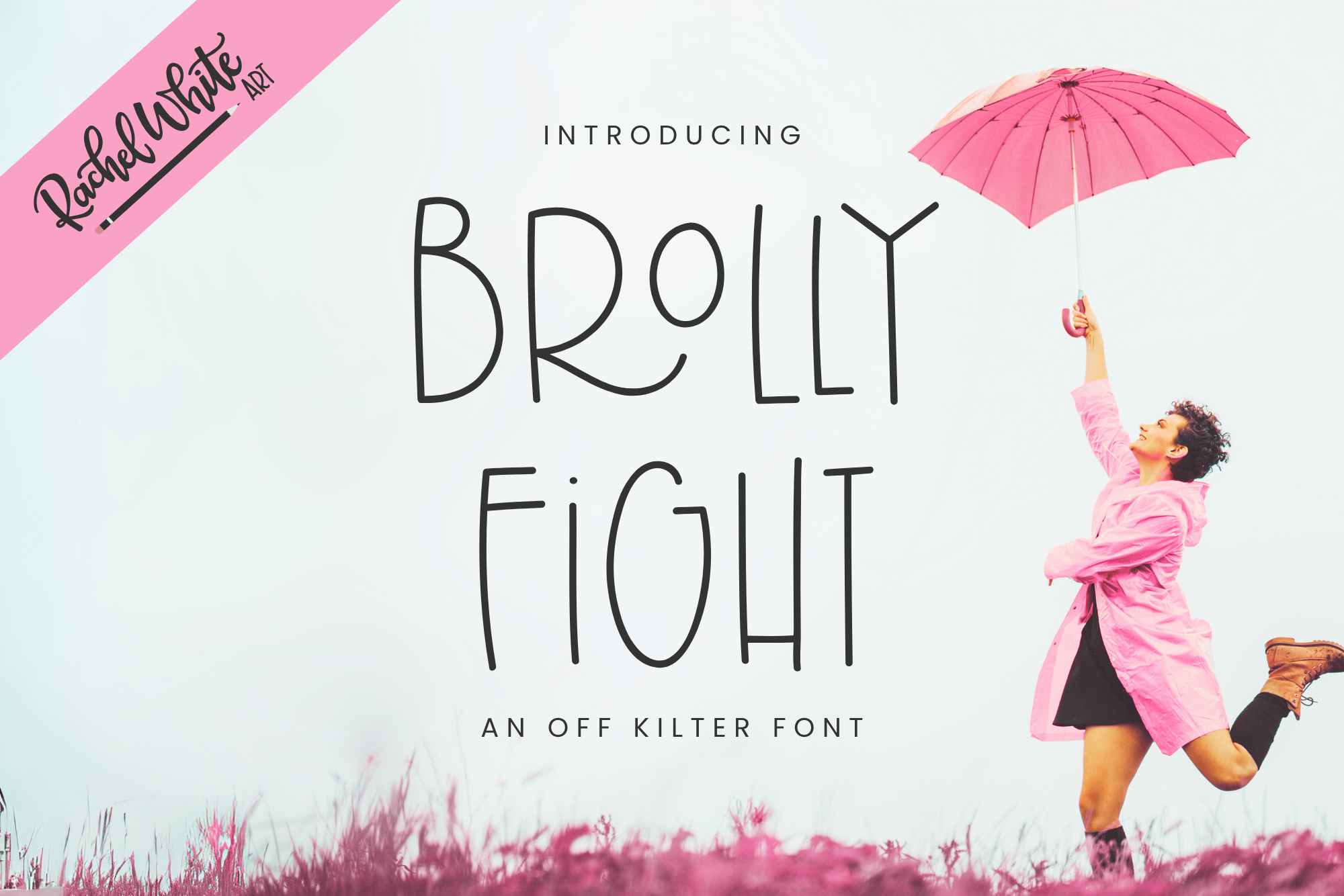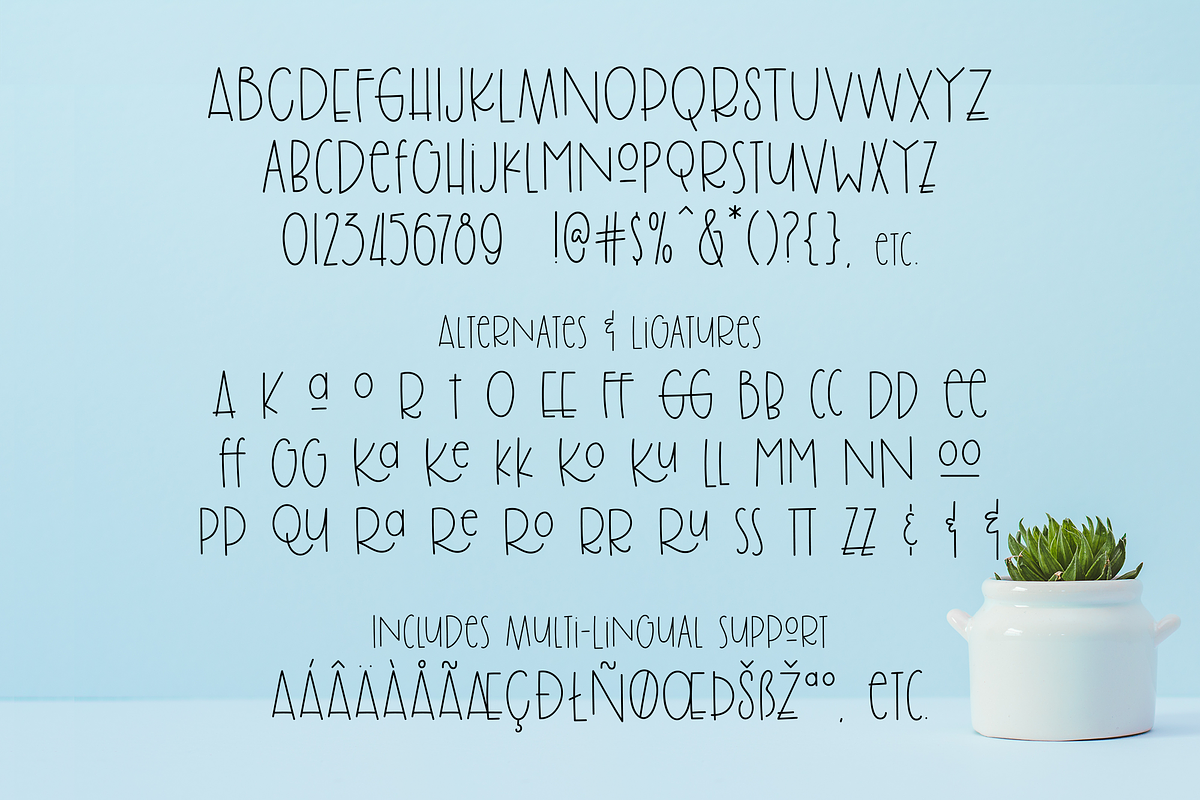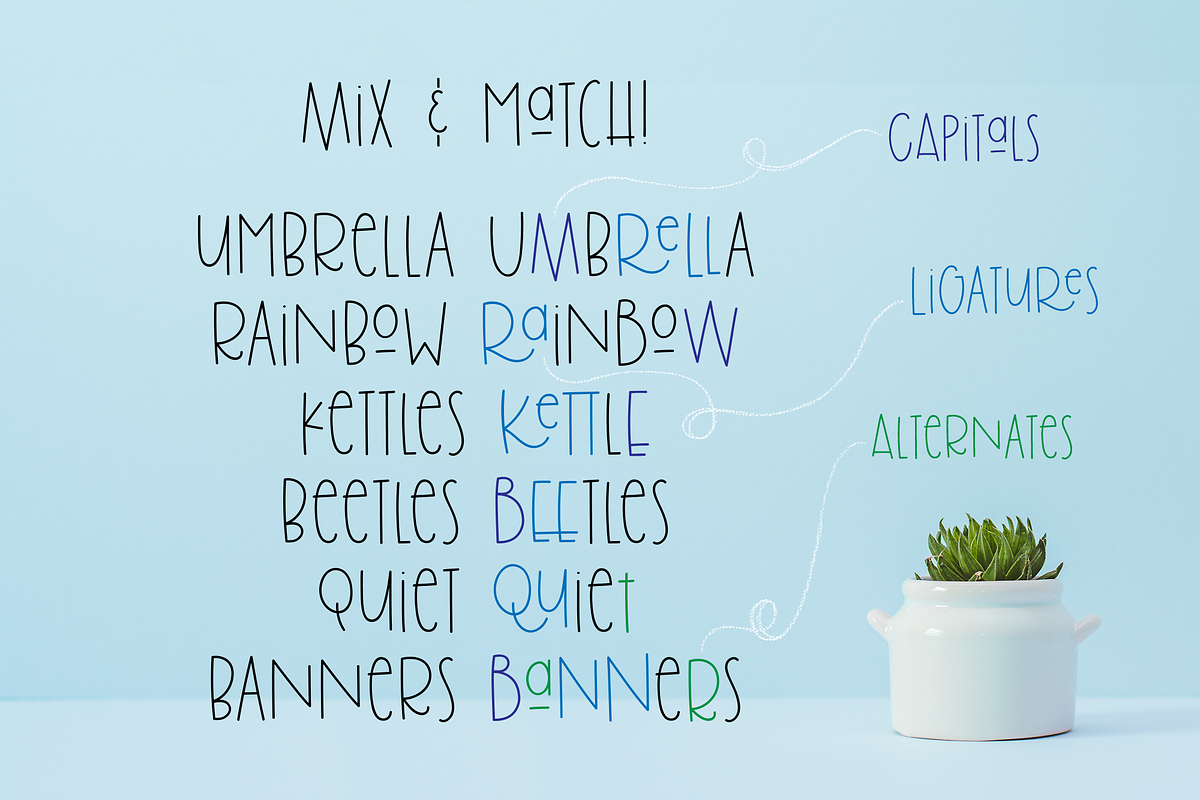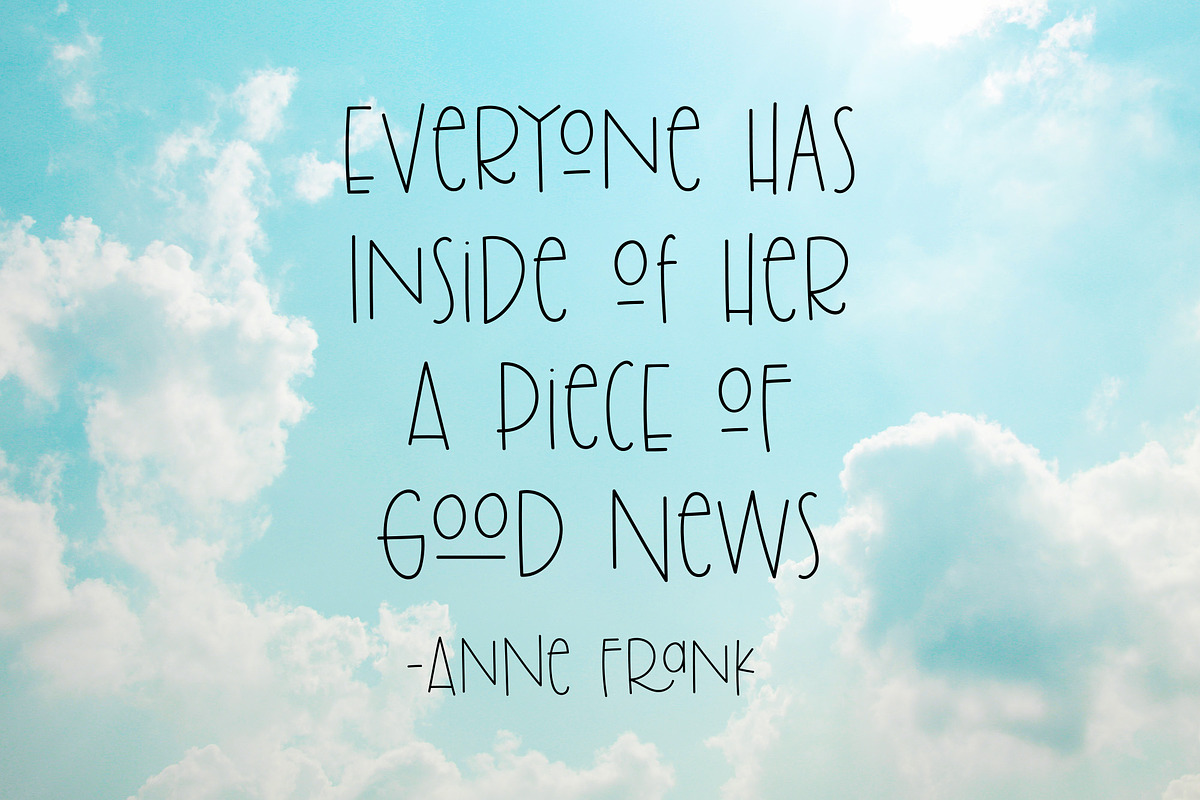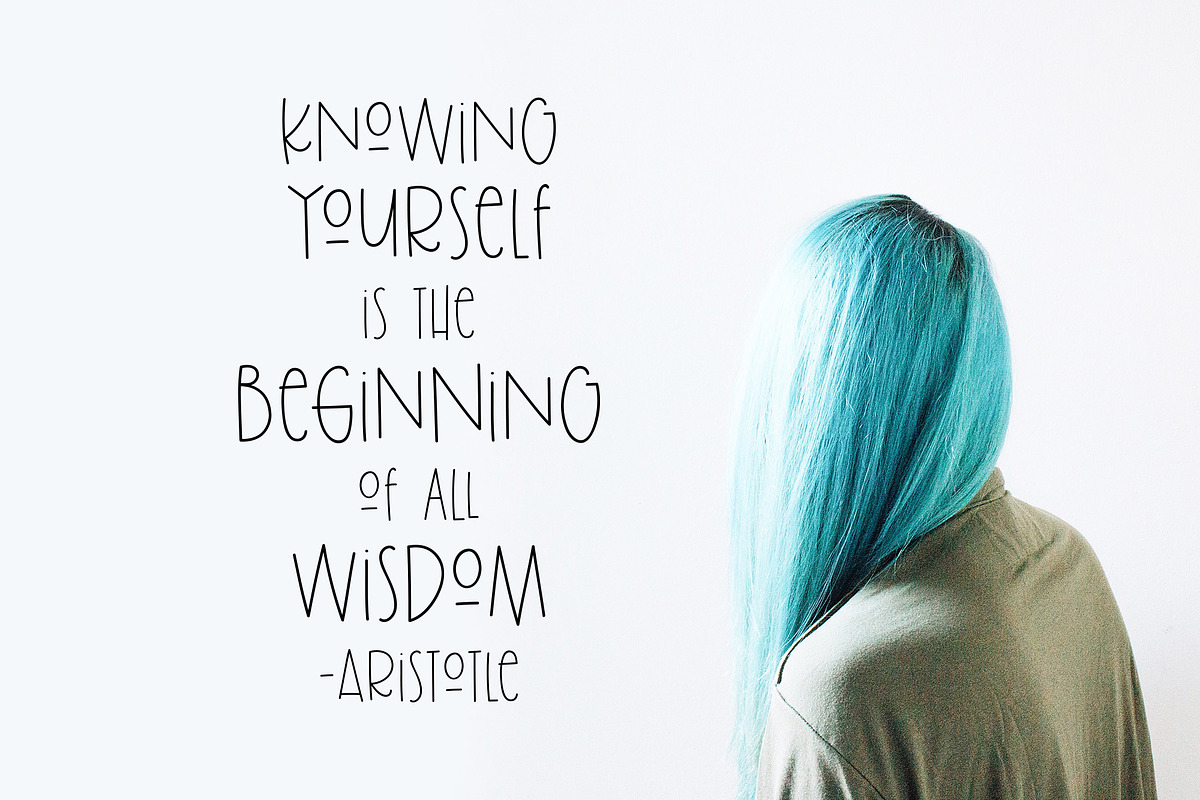
Brolly Fight, a playful wonky font
Brolly Fight is a delightfully wonky display font full of cheerful personality. With quirky letterforms and playful rhythm, it's perfect for children's books, toy brands, greeting cards, packaging, stickers, and any project that deserves a little extra charm. Despite its offbeat personality, it's wonderfully readable, making it just as practical as it is fun.
Brolly Fight is perfect for:
Children's book covers
Picture books
Toy brands
Greeting cards
Craft packaging
Bakeries & cafés
Camp logos
Nature centers & parks
Learning materials
Museums
Stickers
Brolly Fight was designed for projects that celebrate a little quirkiness—the kind that make people smile before they've even read the words.
Extras you'll love:
Four alternate ampersands
Fun double letter ligatures
Playful ligatures for common letter combinations like ra, re, ro, ru, ka, ke, ko, and ku.
Alternate lowercase a and o characters for even more personality
Loads of ligatures and alternates
Multi-lingual support for Western European languages
Mix and match capitals and lowercase (plus the ligatures & alternates) to create unique text designs
Have fun mixing capitals, lowercase letters, ligatures, and alternates to create playful lettering that's full of personality.